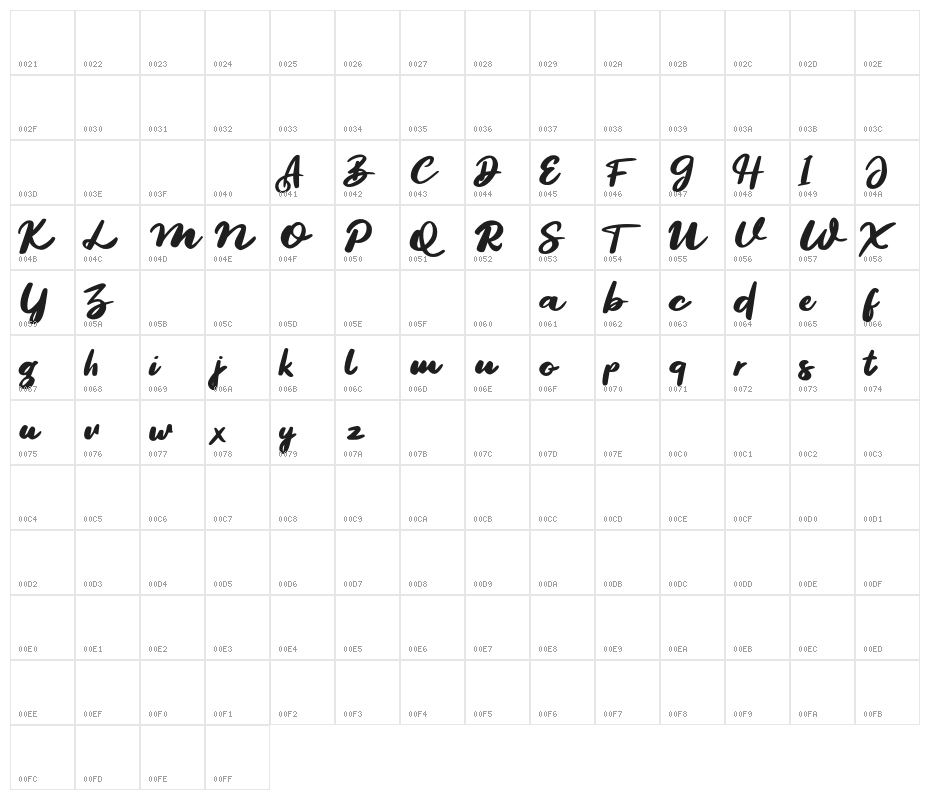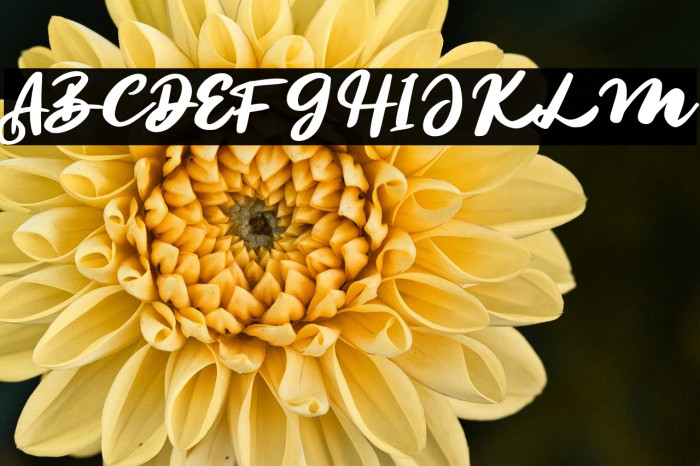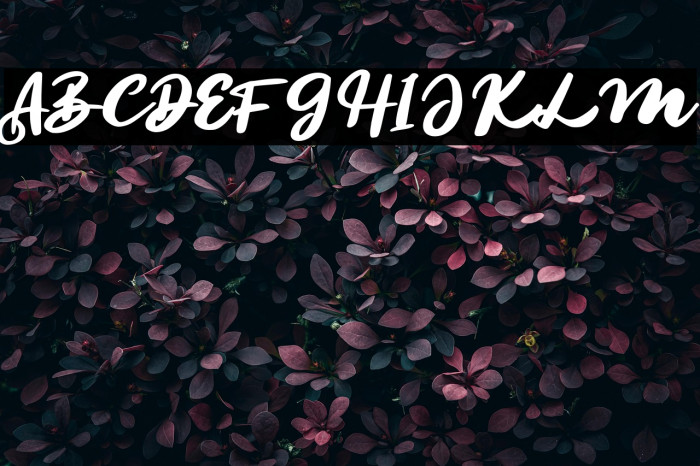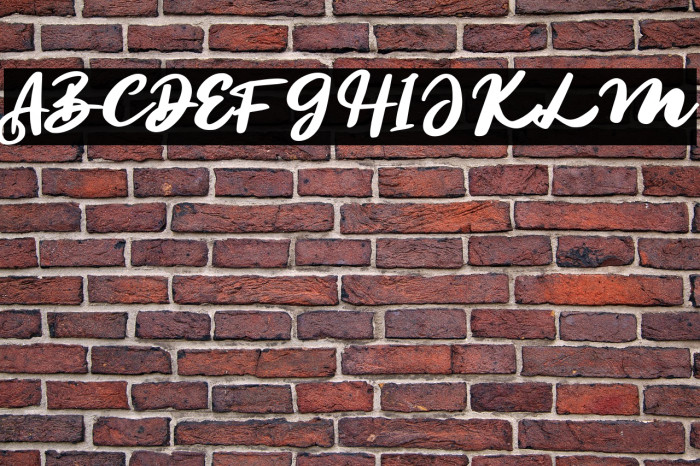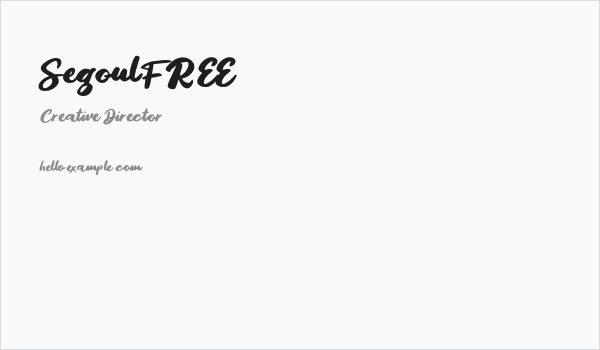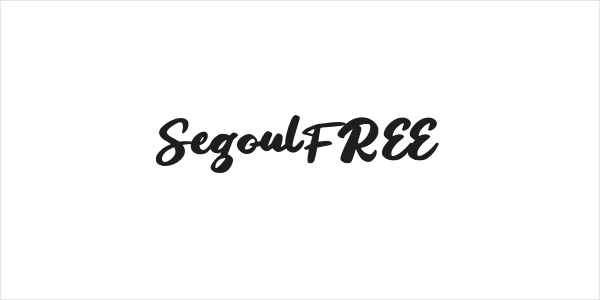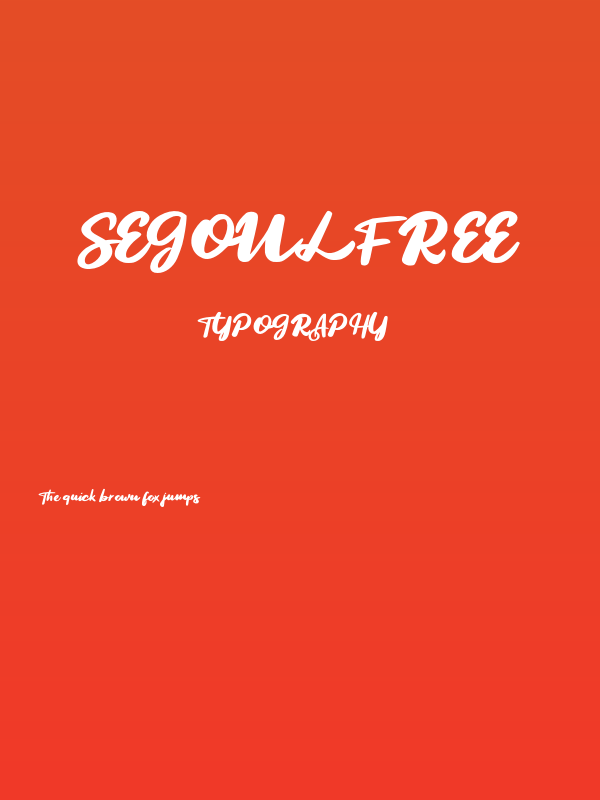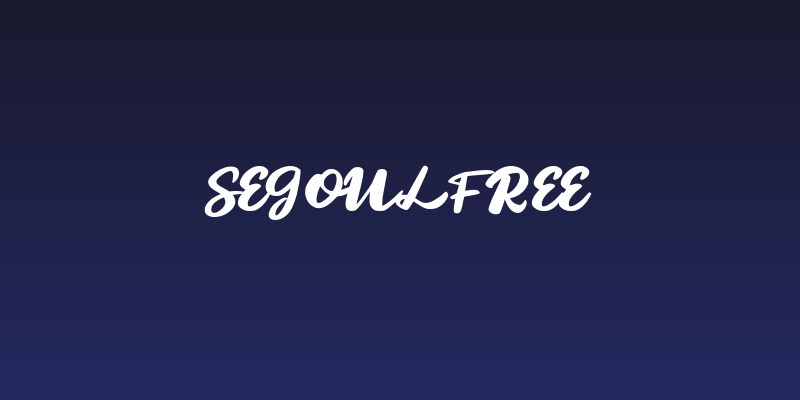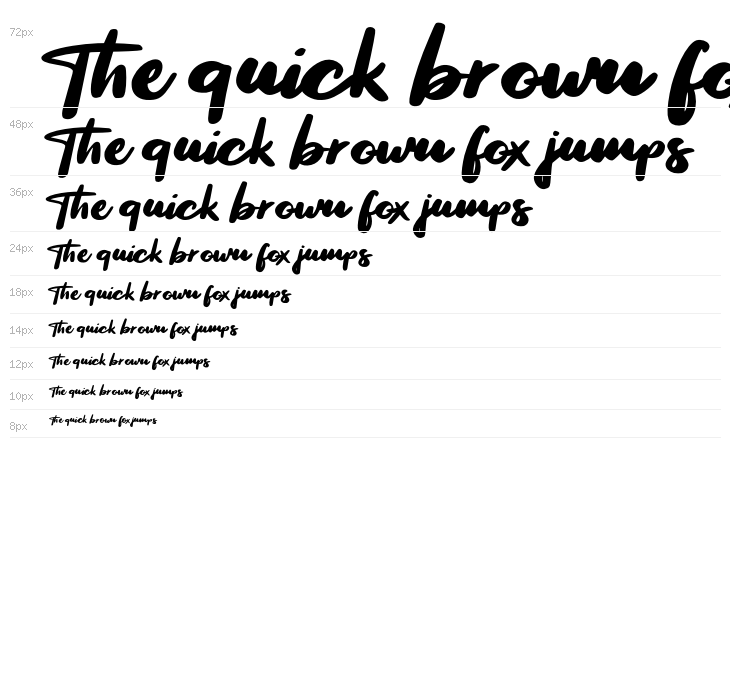
SegoulFREE Font
SegoulFREE Description
This font features a bold, cursive style with a playful and energetic flair. The letters are interconnected, creating a fluid and continuous script that mimics natural handwriting. The uppercase letters maintain a consistent height, while the lowercase letters vary slightly in size, adding to the dynamic appearance. The strokes are thick and rounded, providing a sense of warmth and friendliness. This font is well-suited for projects that require a personal touch or a sense of informality. Its boldness ensures readability while maintaining an artistic and expressive quality.